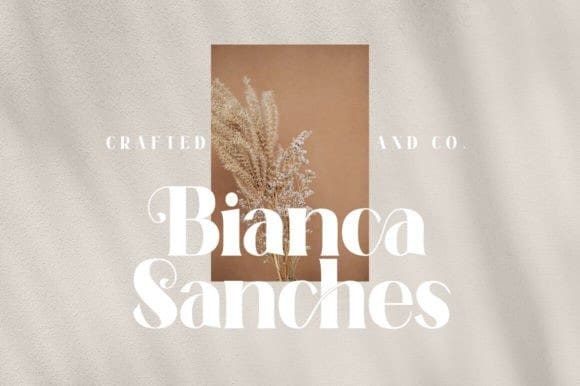
Adoloen Font
Adoloen Font is a bold and assertive serif font. No matter the topic, this font will be an incredible asset to your fonts’ library, as it has the potential to elevate any creation.